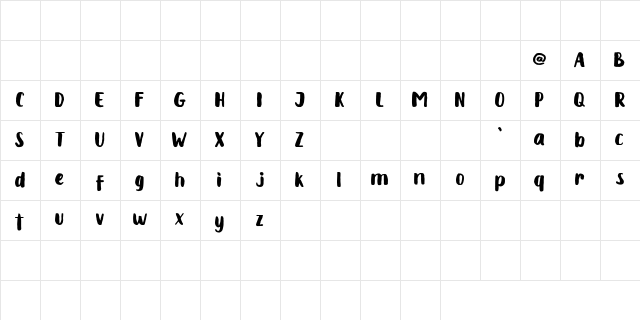
Chabitta Free Font
Chabitta Chabitta
Style: Chabitta
Foundry: Farul Arjianto
Designer: Farul arjianto
Design Context for Chabitta
Chabitta is a composed and adaptable typeface that performs quietly and consistently across a wide range of design contexts.